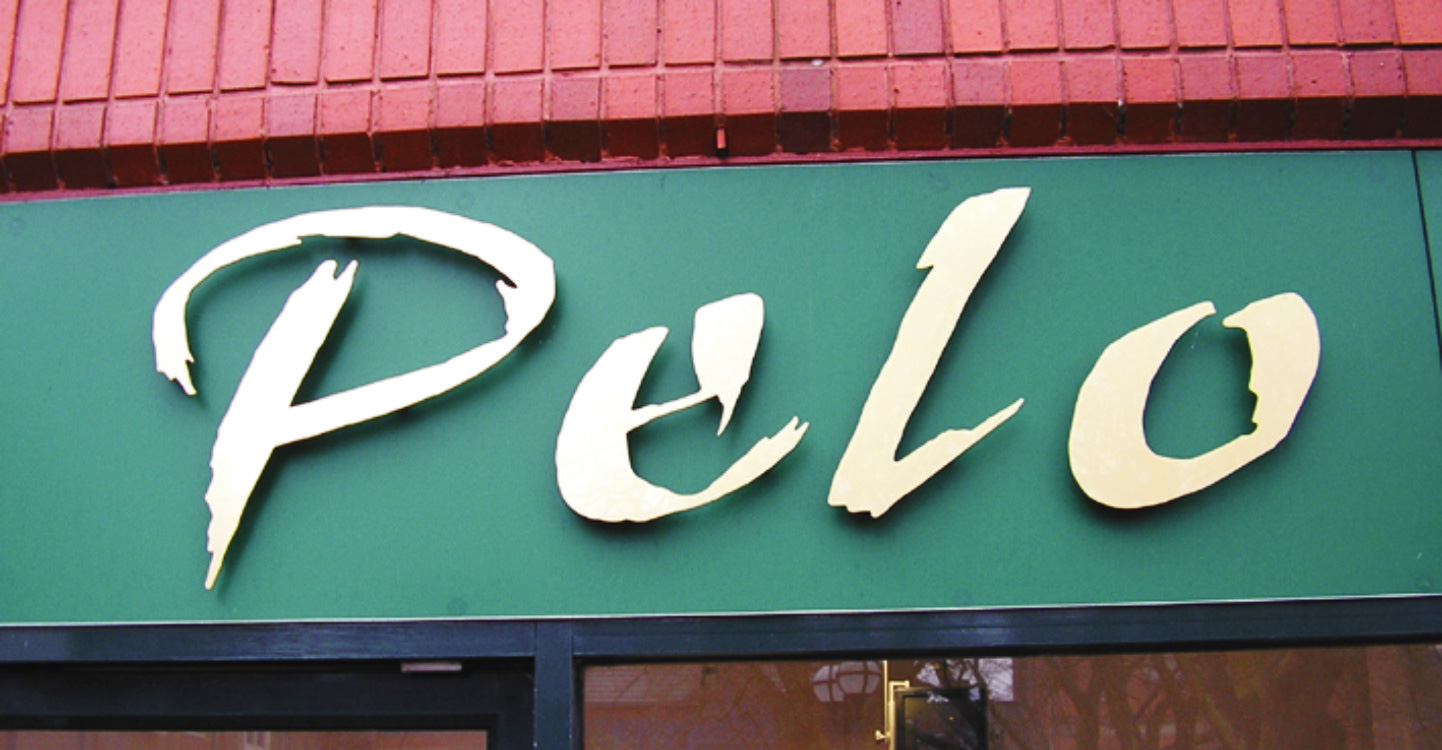
I’ll stick my neck out and suggest this is a graphic mate.
Looks like some hi powered designer has done it with a niko pen, than scanned it 😉
my thoughts too but some font boffin will undoubtably prove me wrong!!
yep, its a font, although its been cleaned up a wee bit before getting to the cnc.